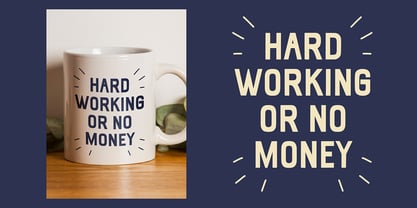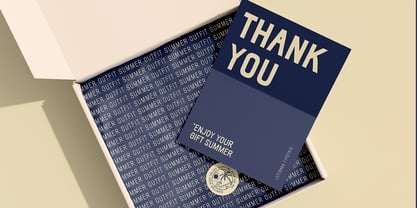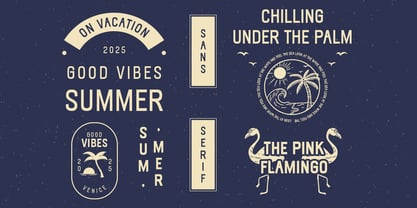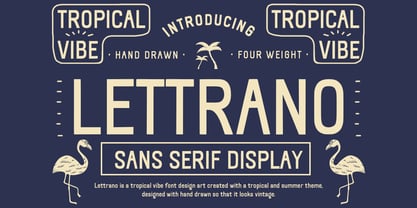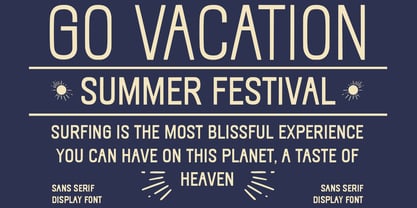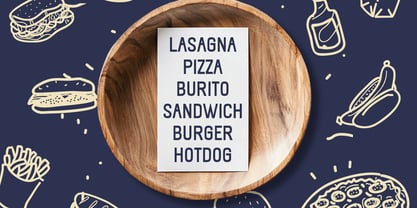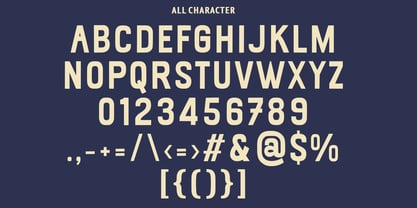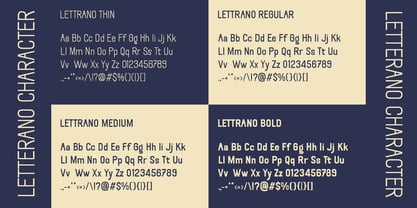
Lettrano
por Arendxstudio
La familia tipográfica Lettrano fue diseñada por Asep Rendi y publicada por Arendxstudio. Lettrano contiene 4 estilos y opciones de paquete familiar. Más información sobre esta familia
Font Description: Lettrano
Lettrano is a vintage tropical hand-drawn font that transports you to sun-soaked beaches, tiki bars, and mid-century paradise. Inspired by the playful typography of 1950s travel posters and Polynesian motifs, Lettrano blends organic, uneven strokes with whimsical curves and exaggerated serifs for a laid-back, retro vibe. Each letter feels like it was sketched with a bamboo pen—slightly imperfect, full of character, and dripping with tropical charm.
Perfect for evoking nostalgia for palm-fringed getaways, Lettrano’s handcrafted aesthetic works wonders on tiki mug labels, surf shop logos, vintage travel ads, or cocktail menus. The font includes quirky alternates and ligatures to mimic the free-spirited energy of hand-painted signage.
Key Features:
- Irregular, hand-drawn letterforms with tropical flair
- Playful serifs and exaggerated curves for retro appeal
- Includes alternates, ligatures, and multilingual support
- Ideal for logos, packaging, posters, and themed branding
Use Cases:
- Tiki bar branding & cocktail menus
- Vintage travel posters & surf club merch
- Beachy packaging (sunscreen, rum labels, etc.)
- Retro-themed weddings or events
Diseñadores: Asep Rendi
Fundición: Arendxstudio